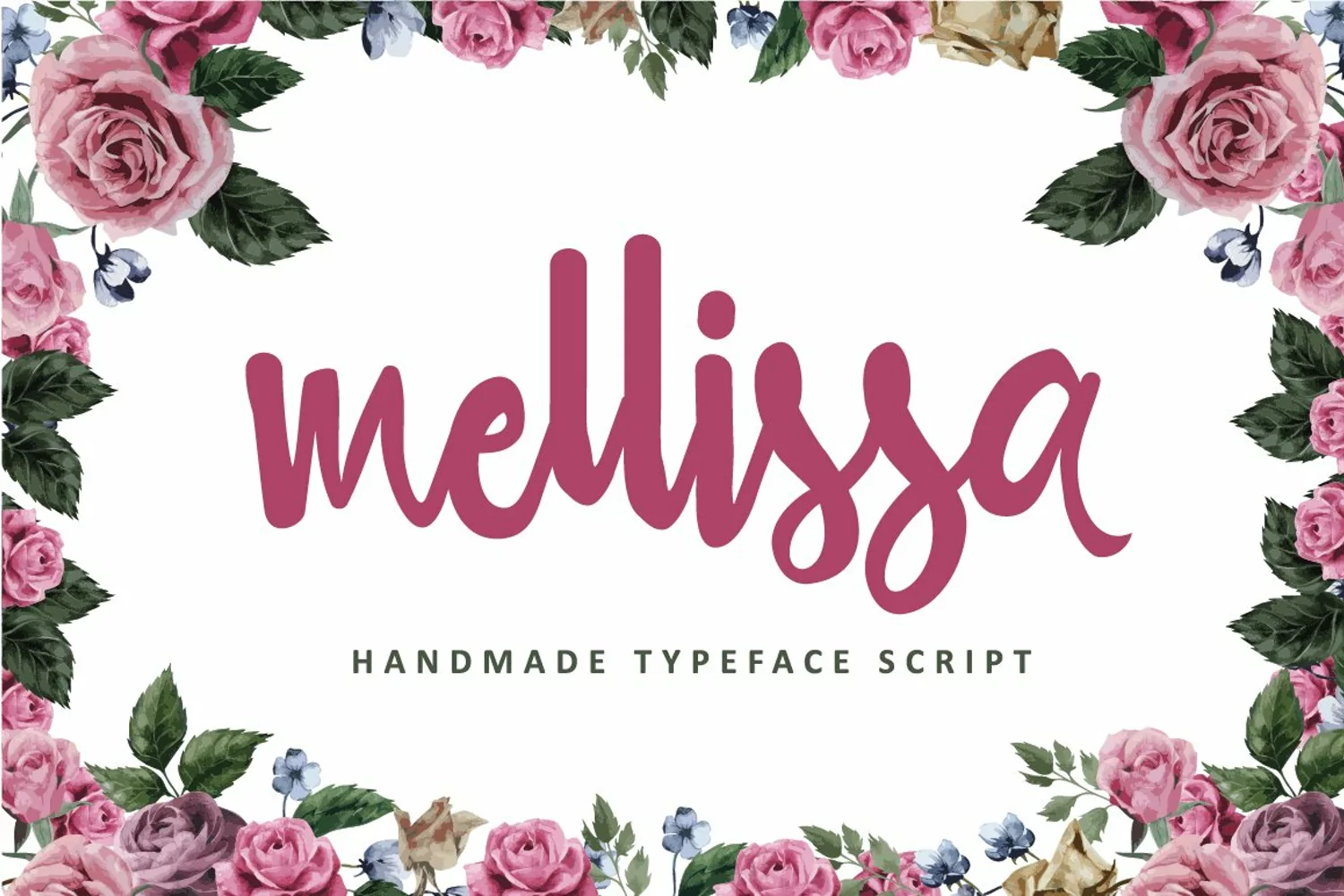
Created By IanMikraz
Mellissa Script
Mellissa Script is a New Handmade Script Font. Mellissa Script is suitable for Apparel Brand, any greeting cards, Painting design style, or any design that needs natural and personal touch. Mix and match the alternate characters to add an attractive message to your design.
214 glyphs and alternate character contain with opentype features. Stylistic alternates, Ligature and more.You can access all those alternate characters by using OpenType savvy programs such as Adobe Illustrator and Adobe InDesign.